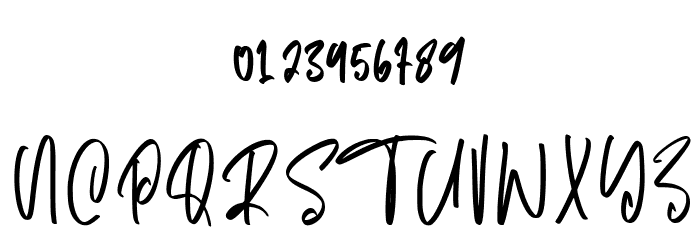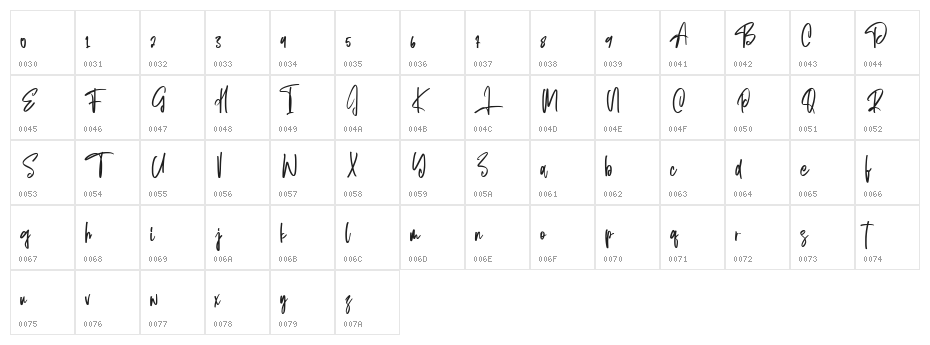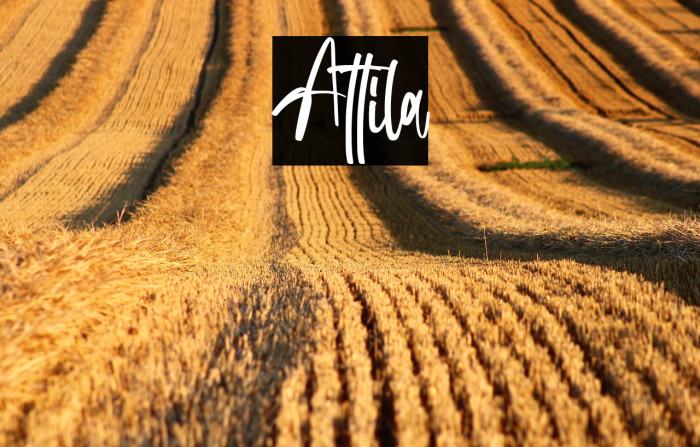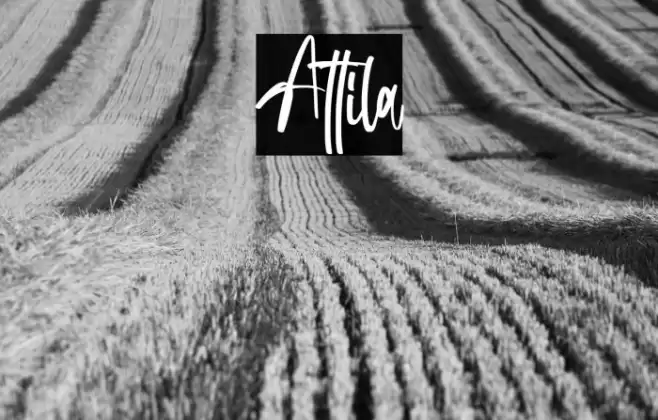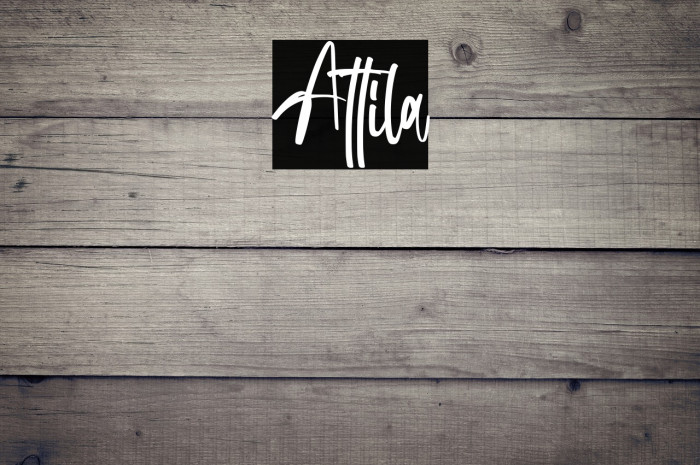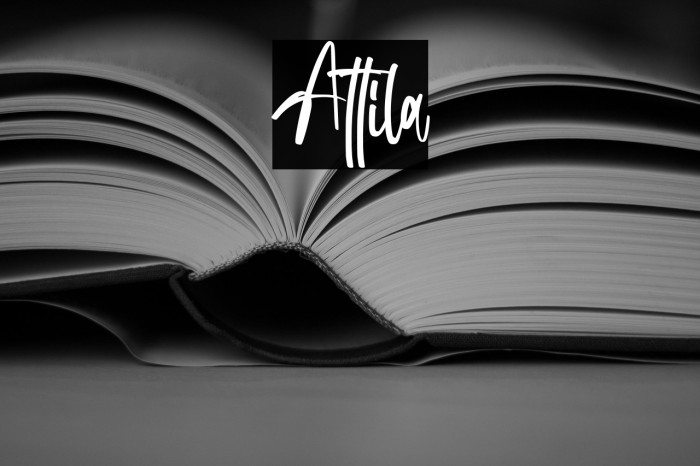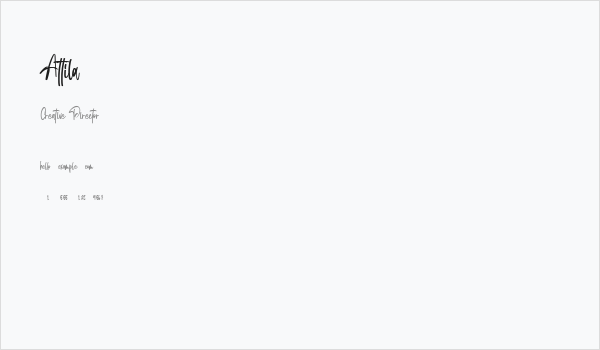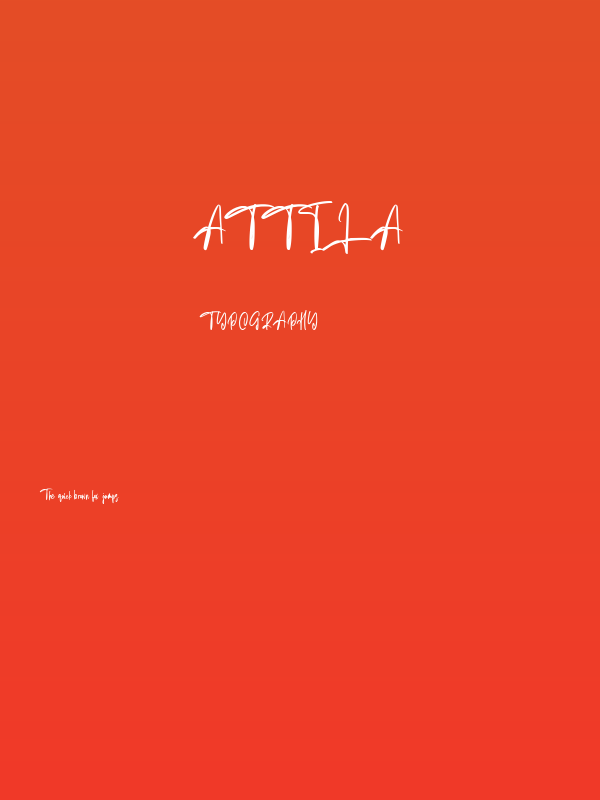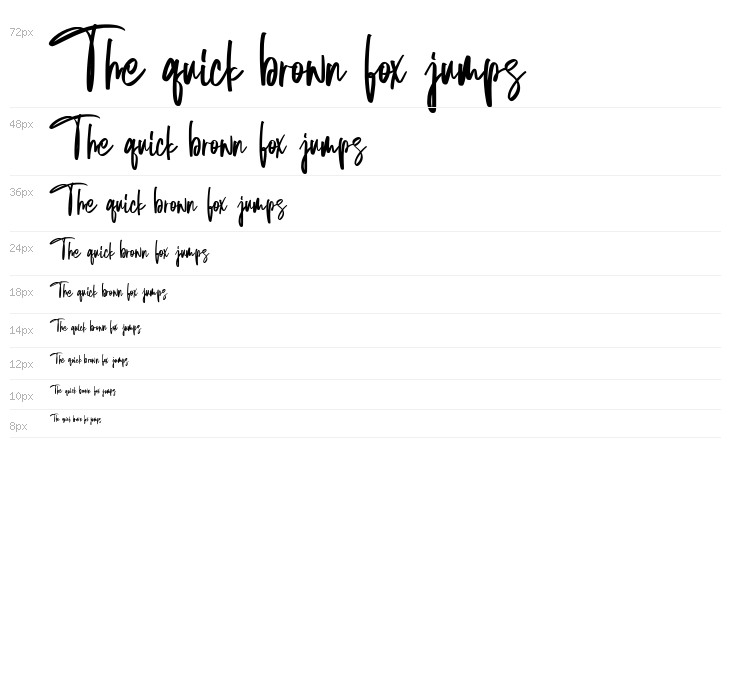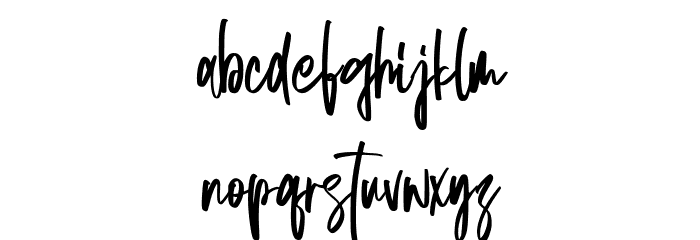
Attila Font
Attila Description
This font features a dynamic and expressive handwritten style, characterized by its fluid and flowing letterforms. The uppercase letters exhibit a playful yet elegant flair, with varying stroke widths that add a sense of movement and energy. The lowercase letters maintain this lively aesthetic, offering a cohesive look that complements the uppercase set. Numbers and special characters are crafted with the same attention to detail, ensuring versatility across different design needs. The overall appearance is both modern and artistic, making it suitable for creative projects that require a personal touch.
Use CaseLogos, Headlines, Invitations
Proposed ProjectsIdeal for branding, invitations, greeting cards, and social media graphics.